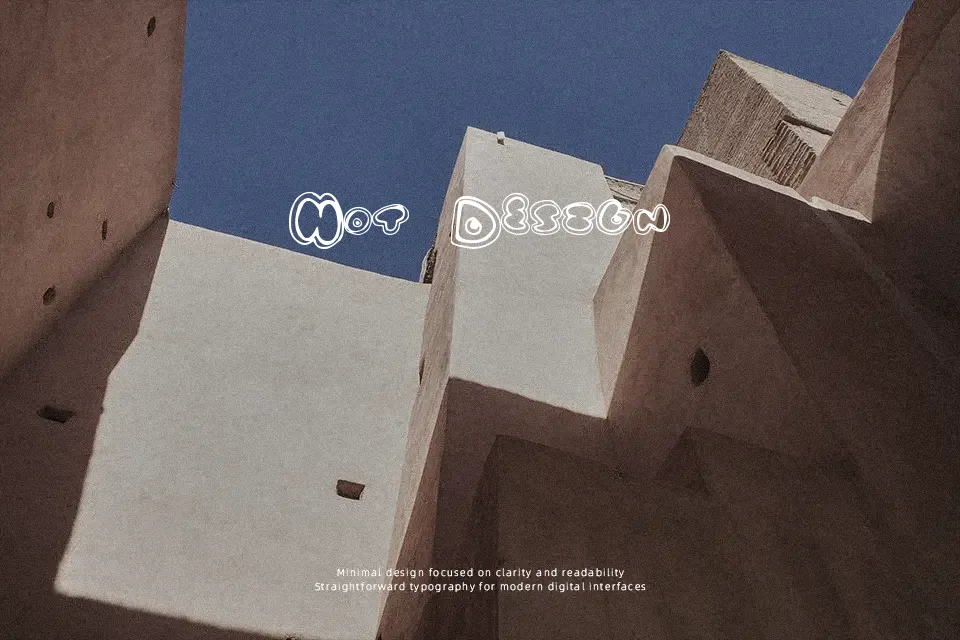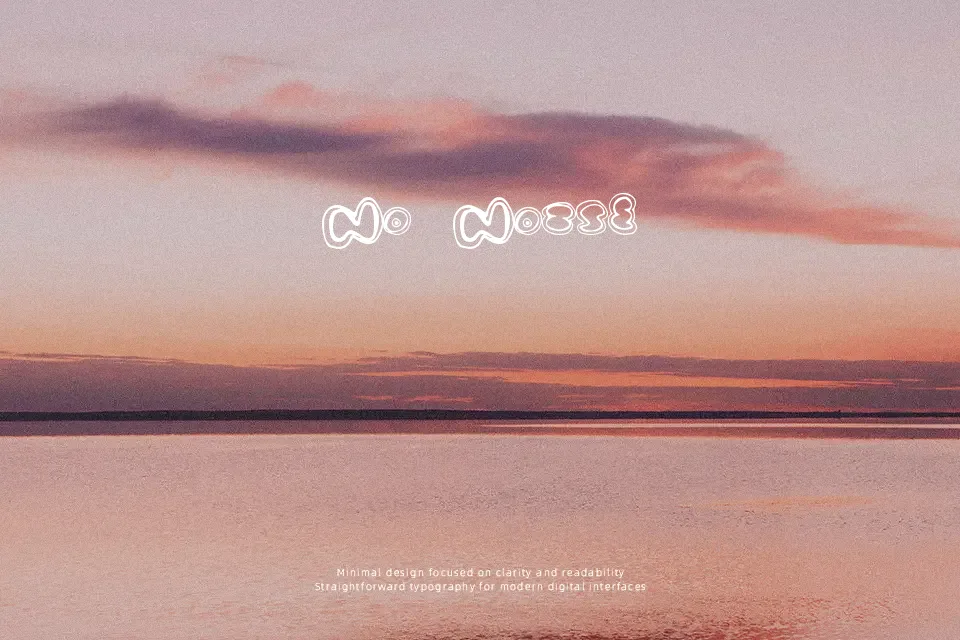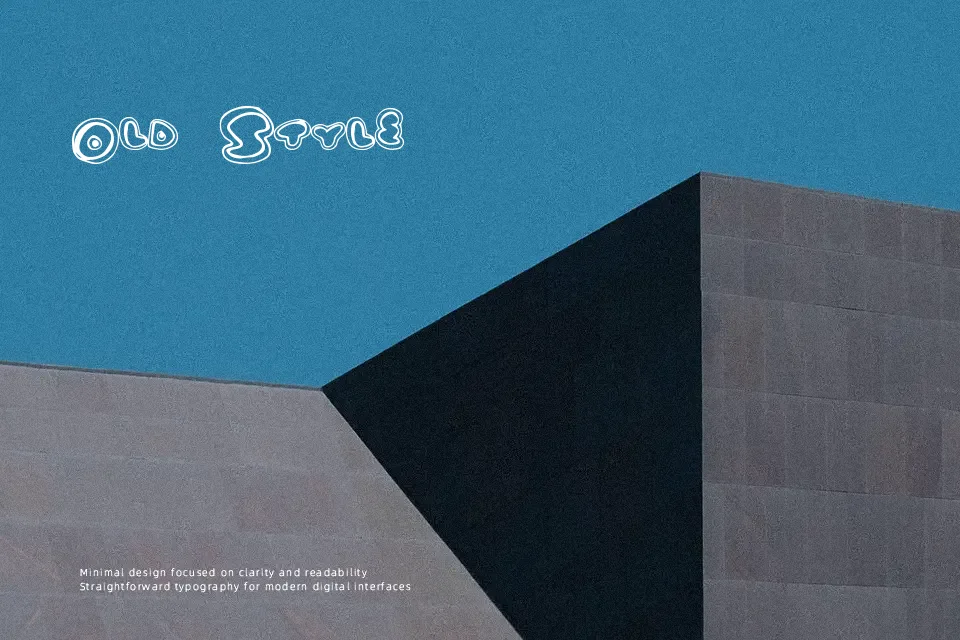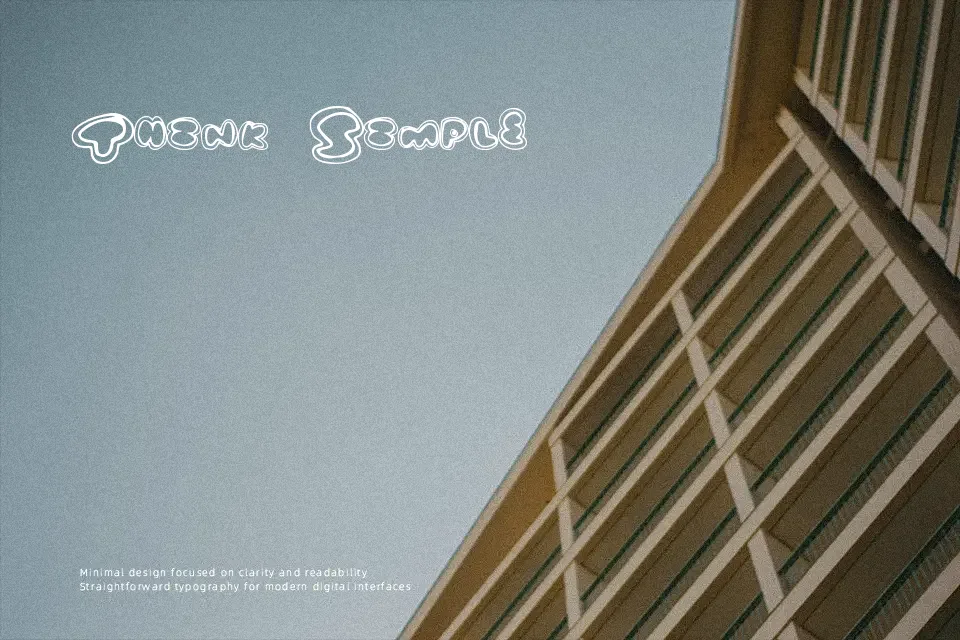
TugBoat Font
TugBoat Font features bulbous character structures shaped by uniform heavy strokes and prominent external outlines. The letterforms display wide, squat proportions with consistently curved contours that give every glyph a soft silhouette. Tight character spacing keeps words compact, producing strong visual cohesion across large signage and toy packaging. While the typeface achieves excellent readability in oversized poster titles, dense forms reduce comfort during extended reading. Furthermore, the thick contours merge together at reduced scales, making the design unsuitable for multi-line paragraphs or small captions. Designers will find this font most effective when deployed sparingly for punchy, high-impact headers.
Best For: toy packaging, children’s book covers, arcade game titles, party event posters
Not Ideal For: long paragraph text, corporate financial reports, mobile app body copy, dense editorial layouts